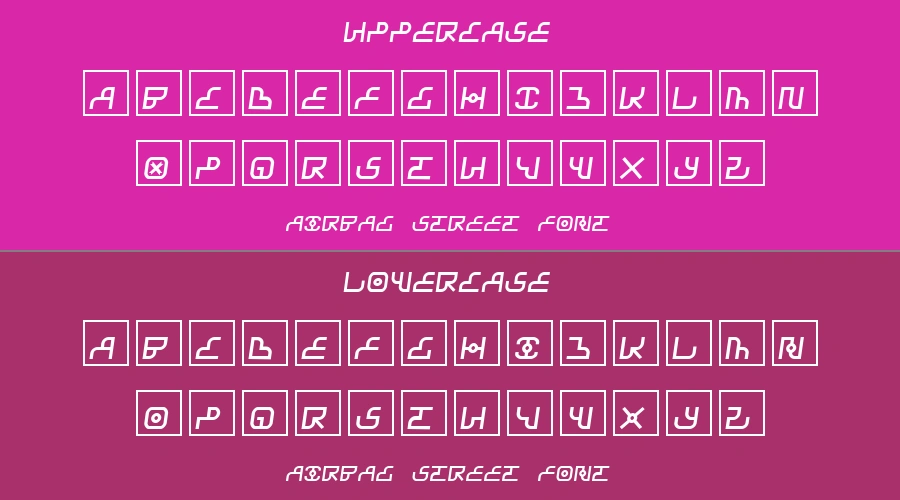
About Airbag Street Font
Airbag Street Font represents a sophisticated approach to type design, balancing decorative alternates with market differentiation. Perfect for merchandise graphics, this font family showcases impressive originality and market confidence throughout its character set. Designers appreciate its versatility and reliability.
Designers will appreciate nuanced touches including balanced tension and arrow sets, adding sophistication to any project. These features become apparent in sidebars, where scanning accuracy matters most. The careful treatment of letterfit and user perception ensures optimal performance.